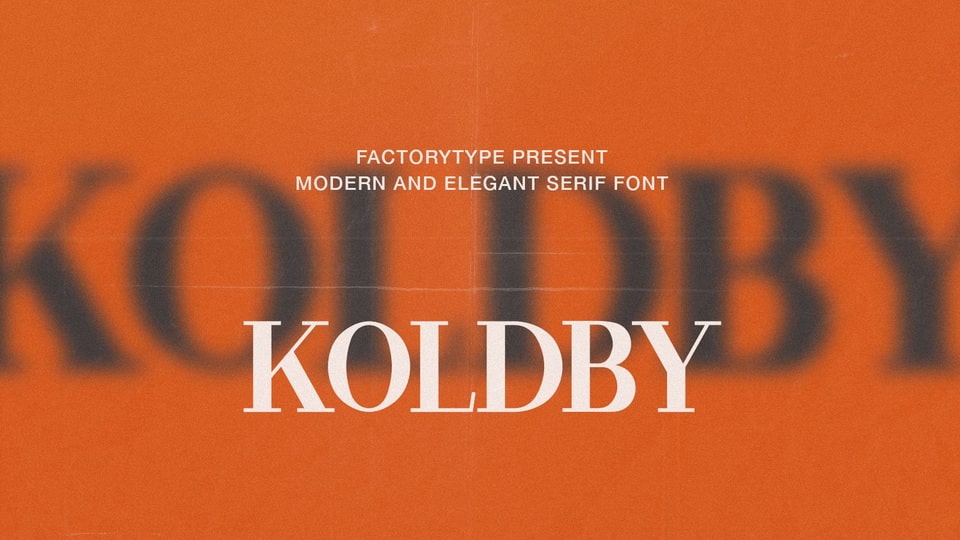
Download Koldby Serif font, an elegant font with a touch of vintage charm to your modern designs. The classic old-style letterforms have been updated to suit contemporary tastes, making Koldby Serif the perfect font for any project.
Designer: Factory Type